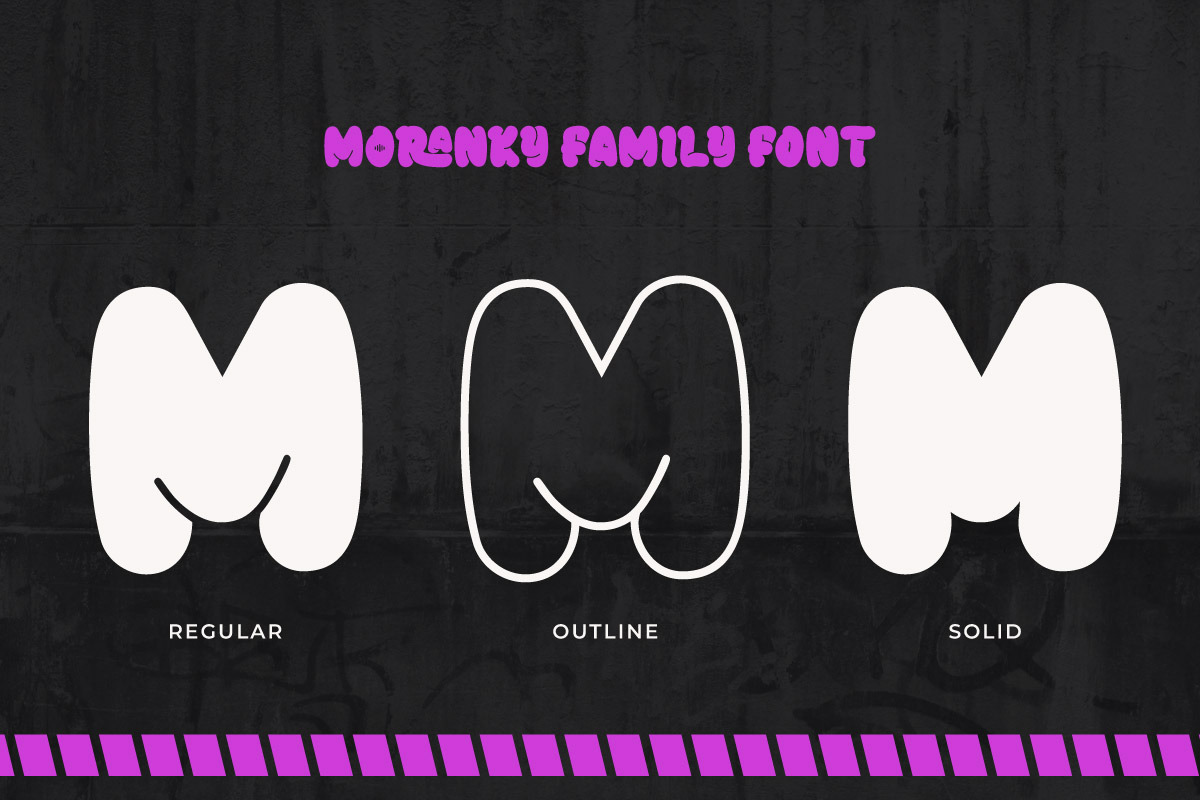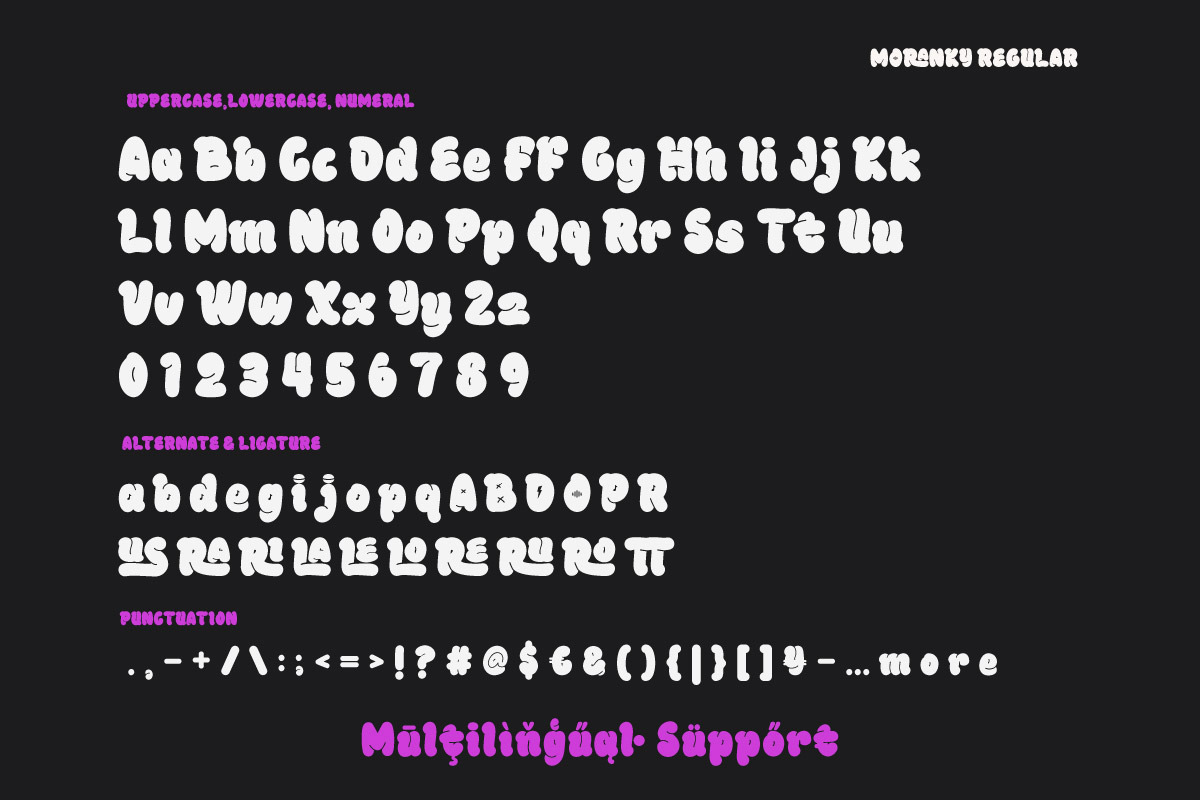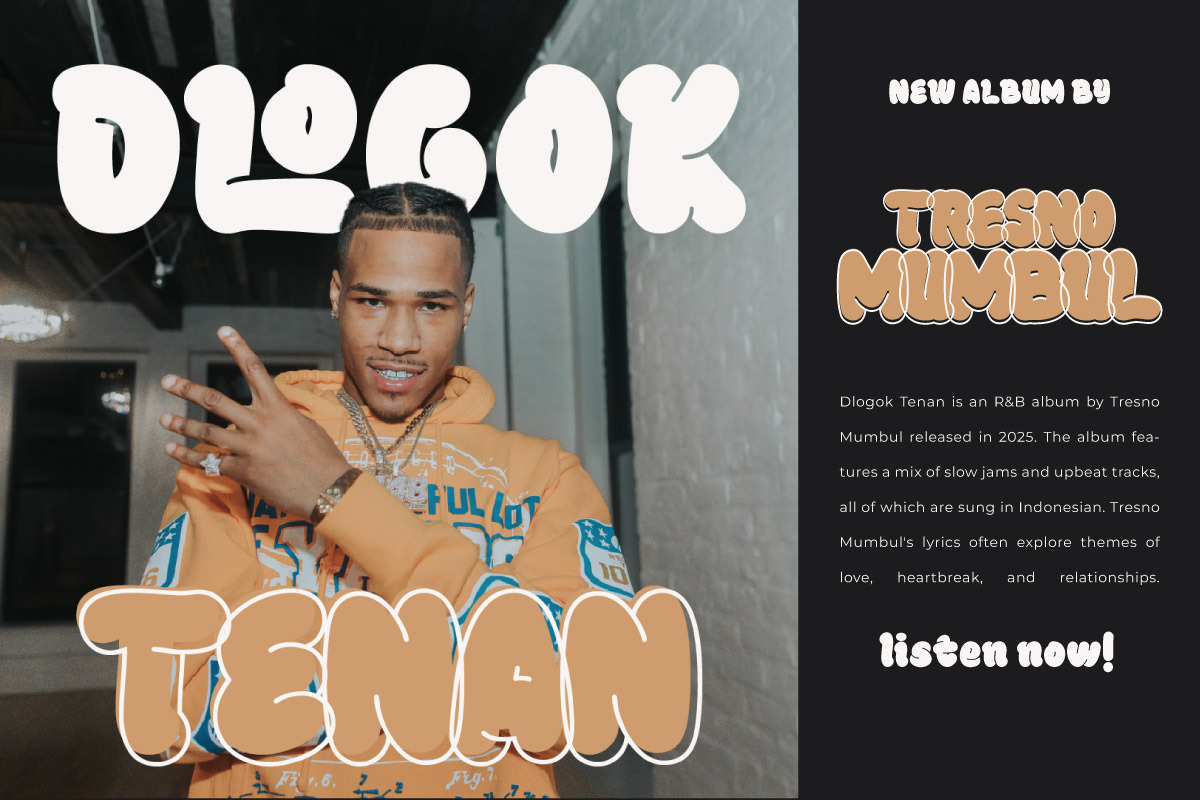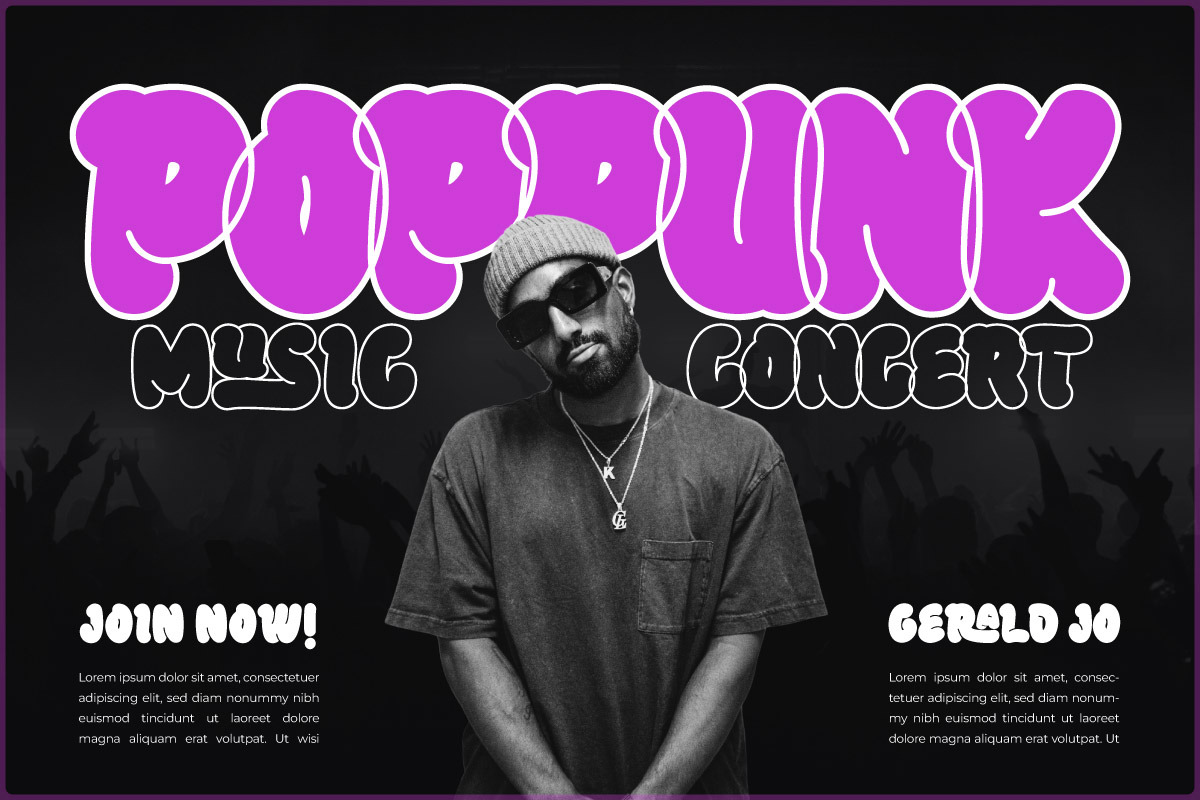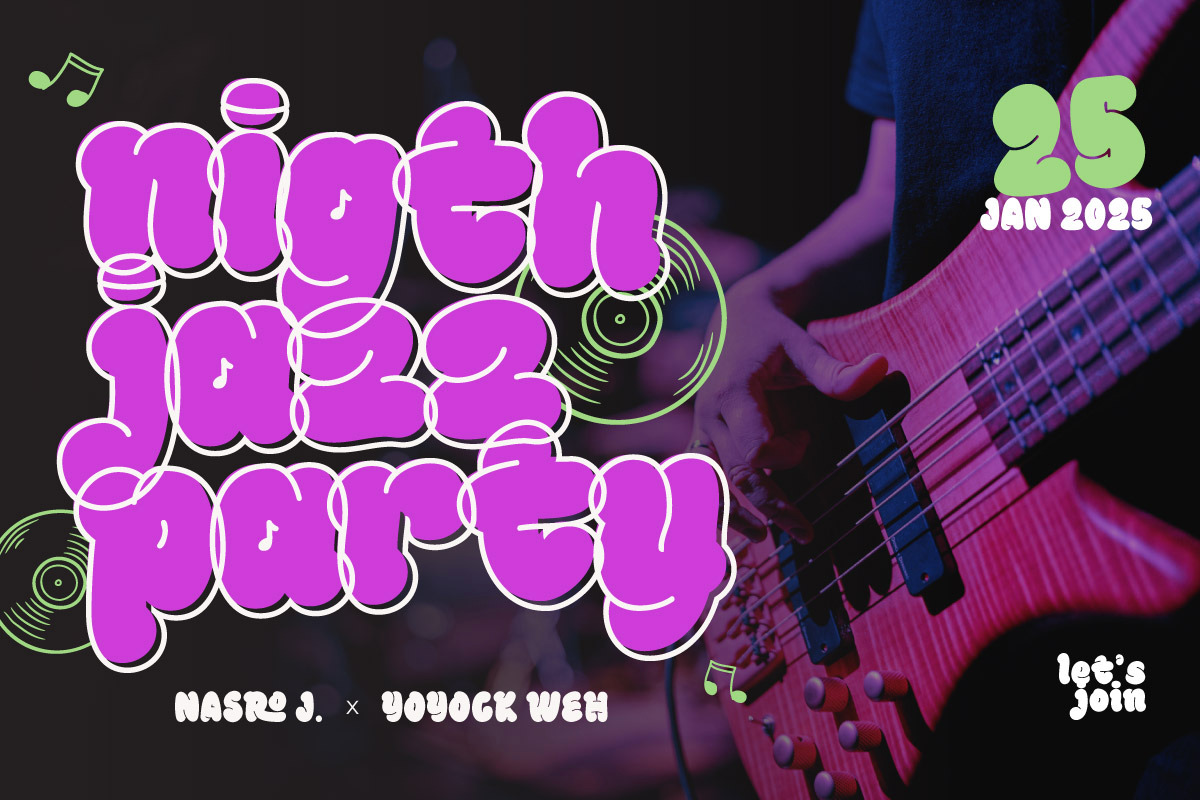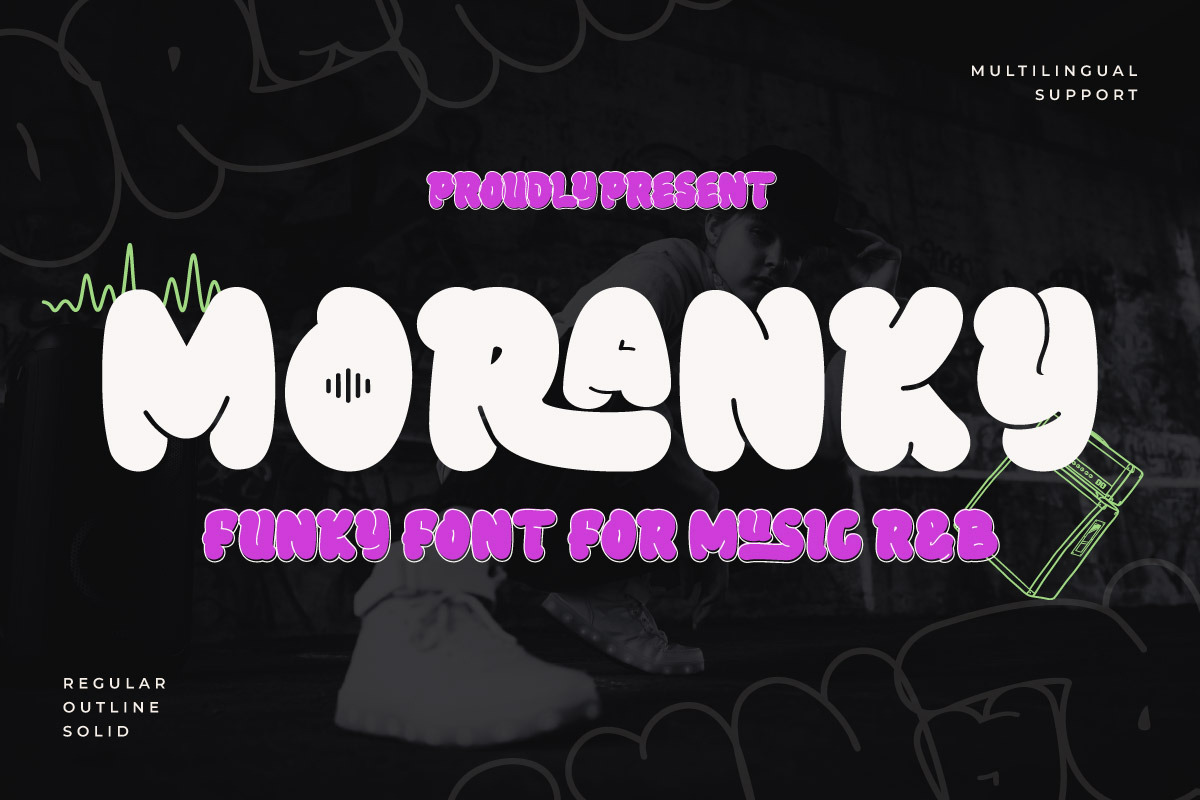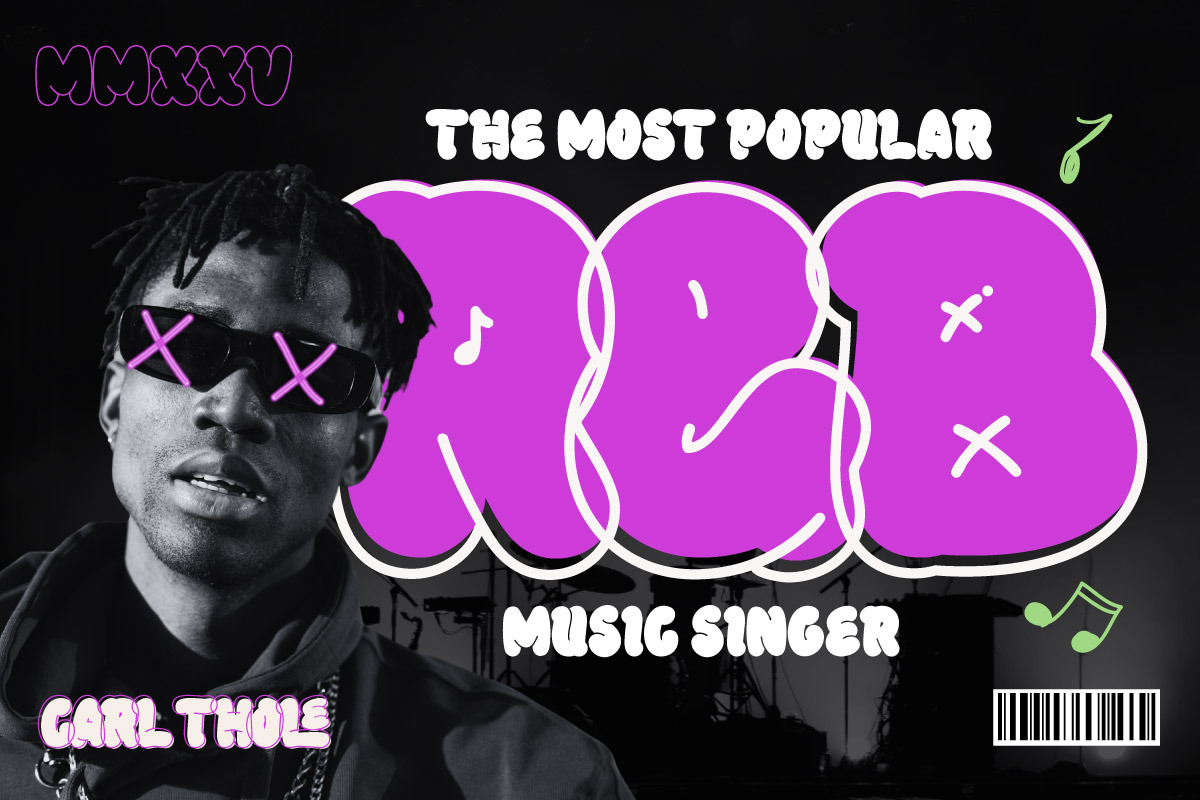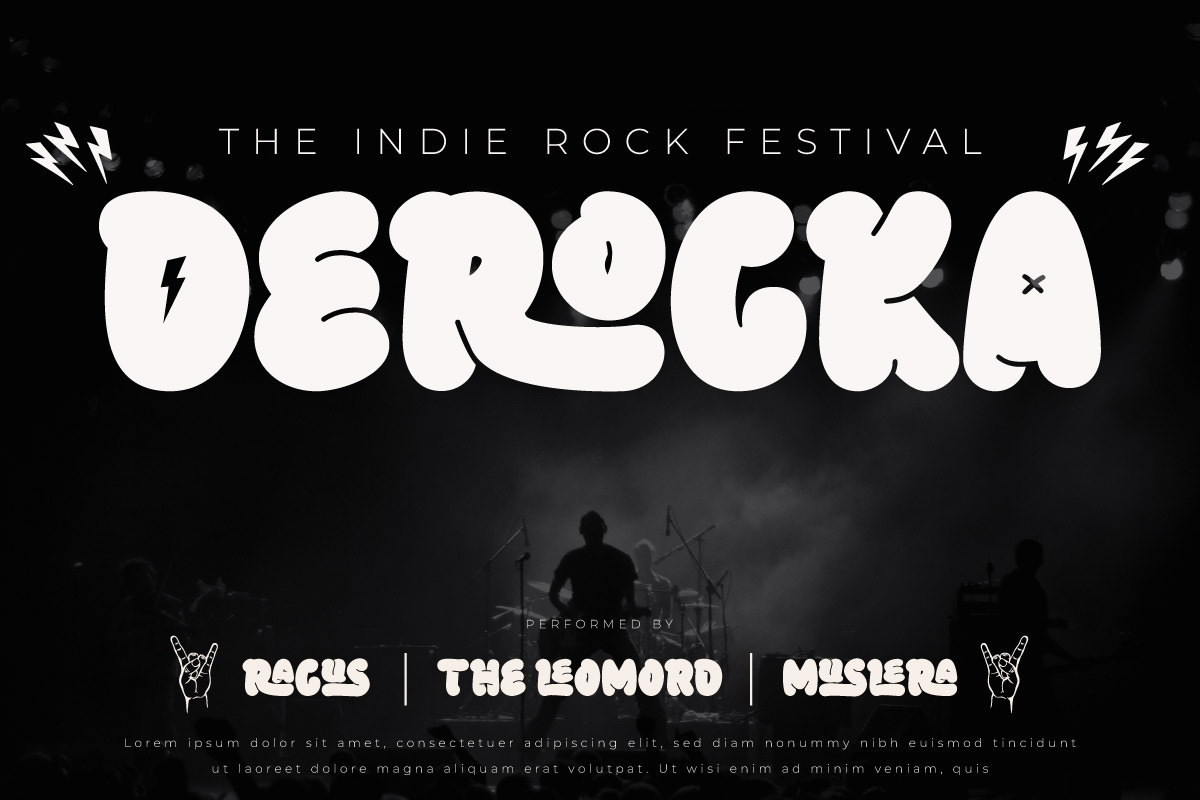
Moranky - Funky Decorative Font
Bring the rhythm to life with Moranky, a funky and decorative display font designed for R&B, soul, and jazz themes. Perfect for album covers, concert promotions, and carnival designs, Moranky captures the essence of music with its unique and playful letterforms. Its creative flair and emotional depth make it an ideal choice for designers seeking to create visually stunning and dynamic projects. Whether you’re crafting promotional posters or artistic branding, Moranky delivers a soulful and engaging visual experience.